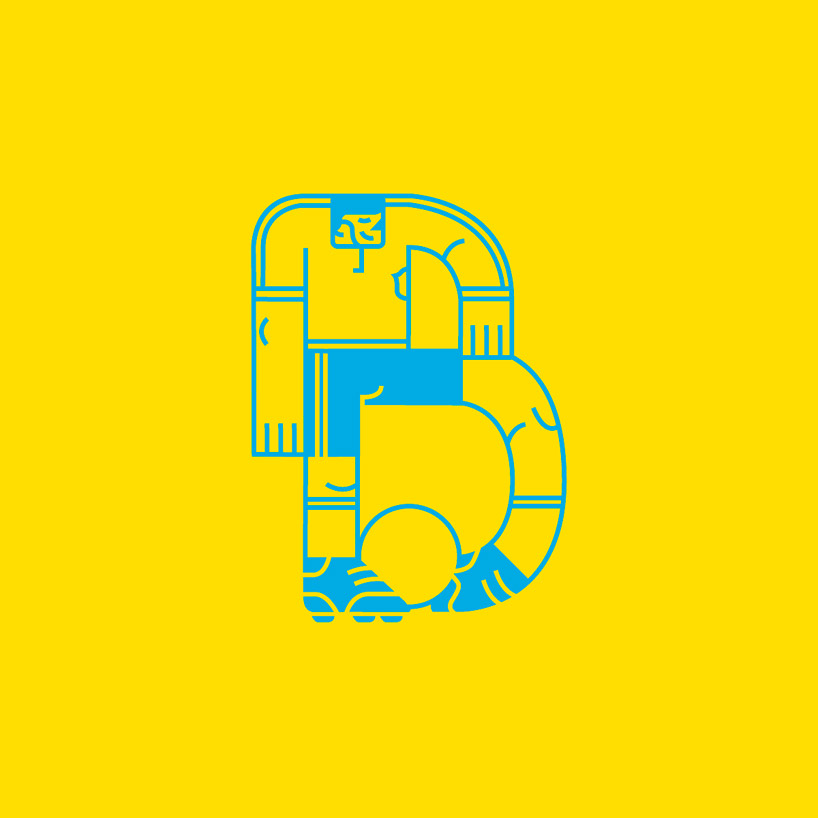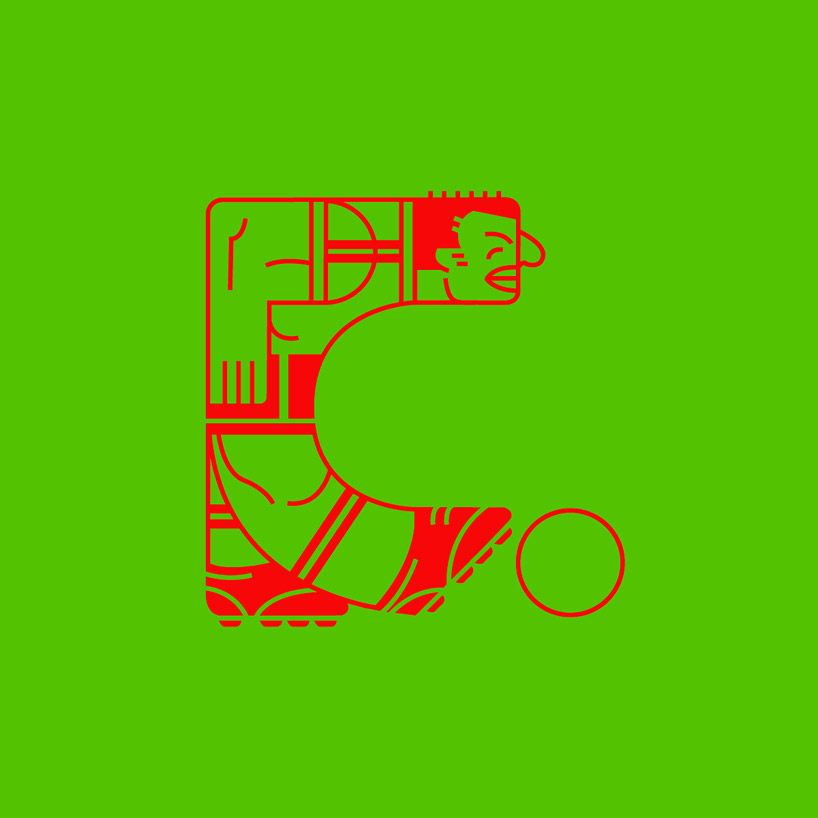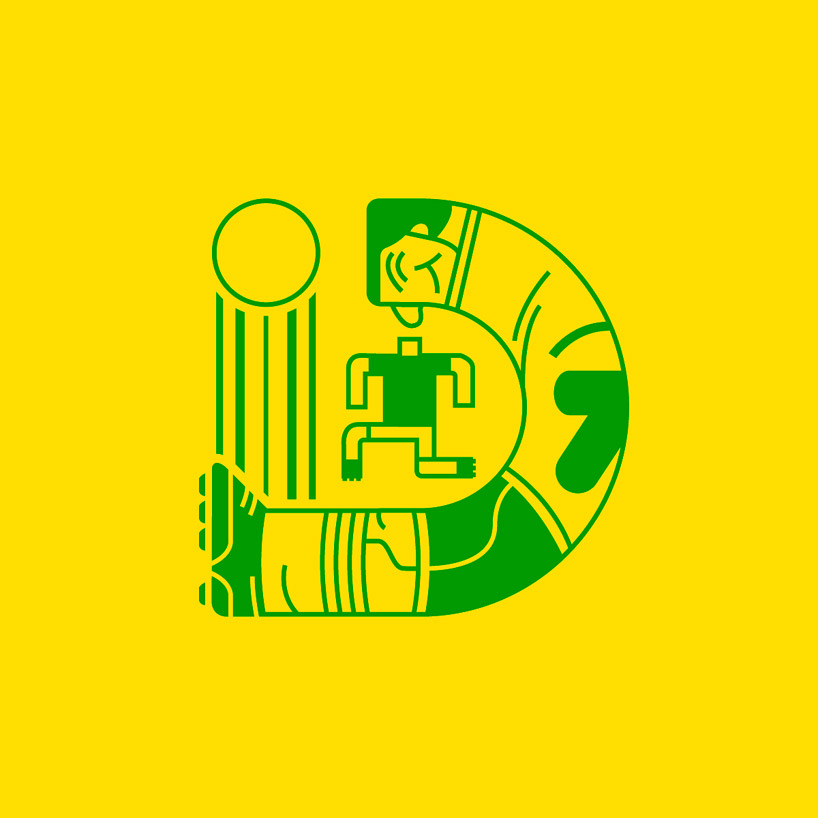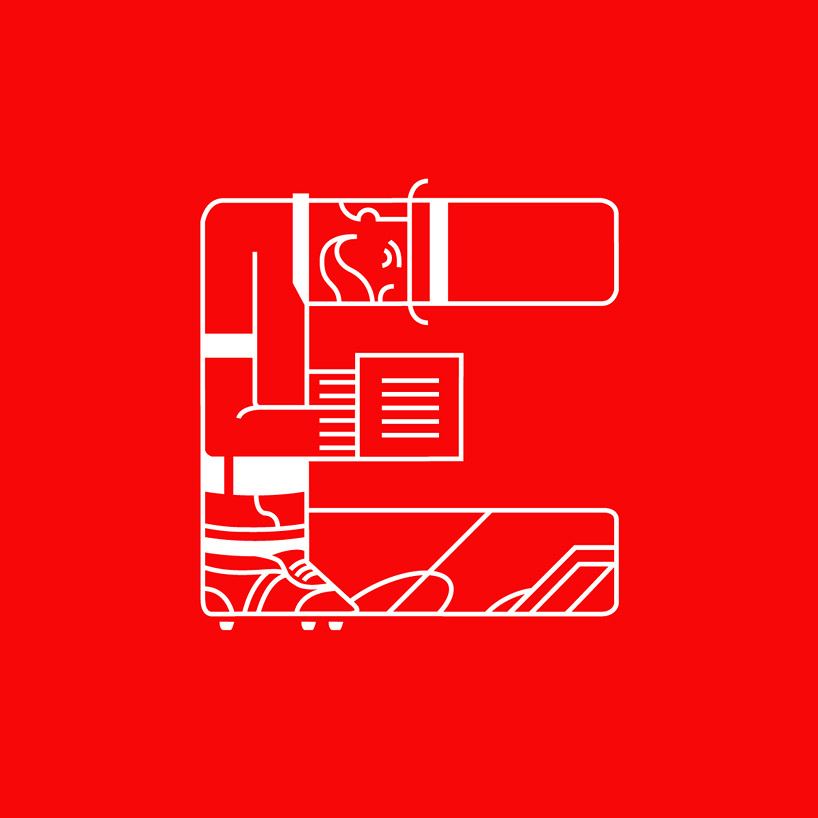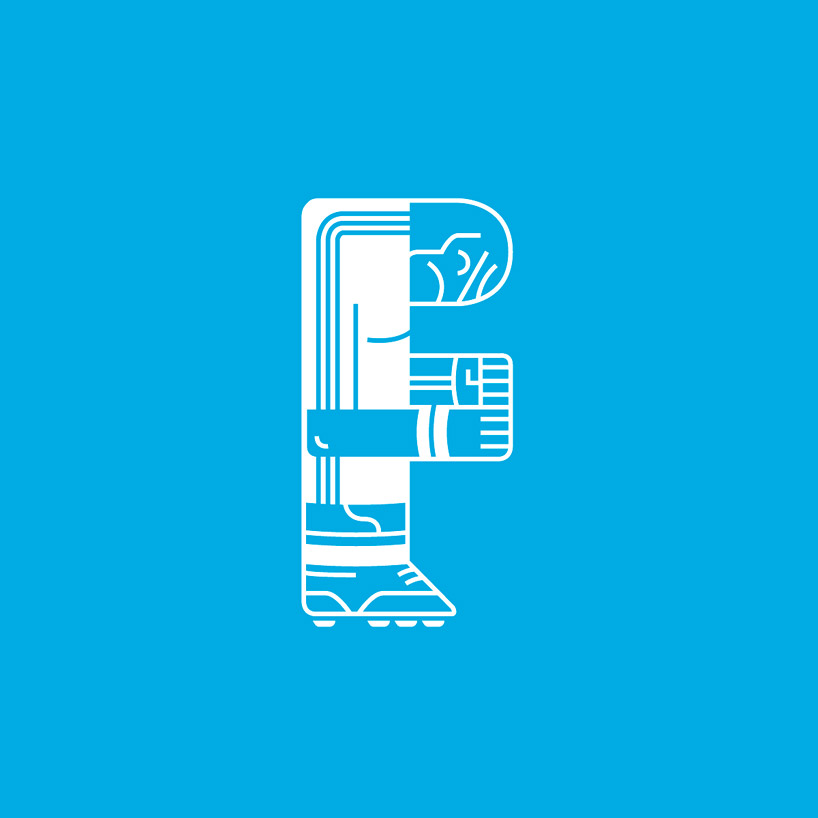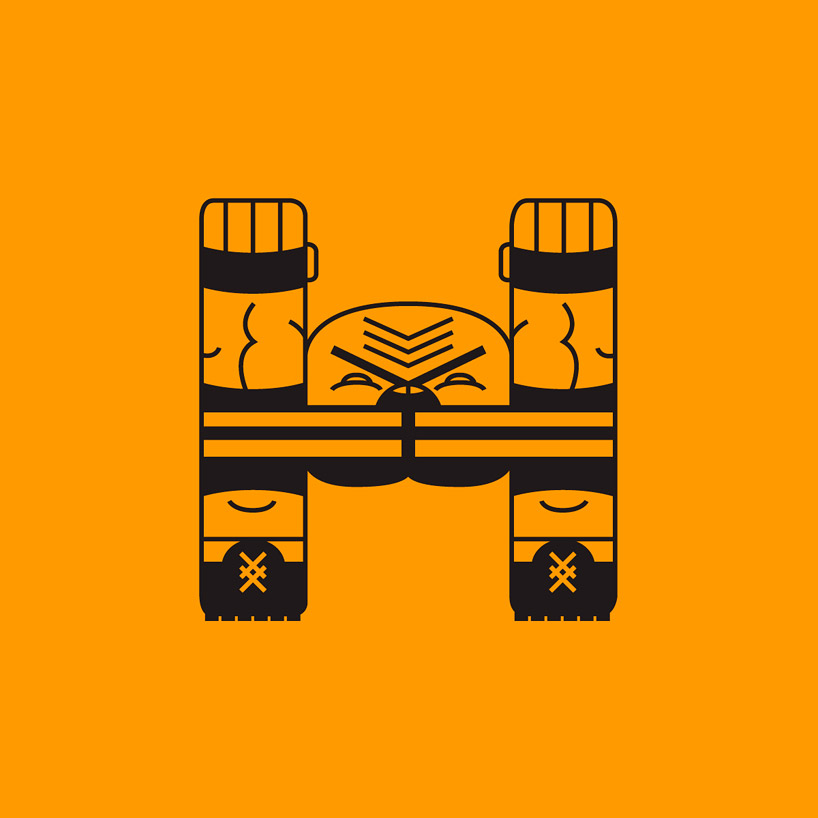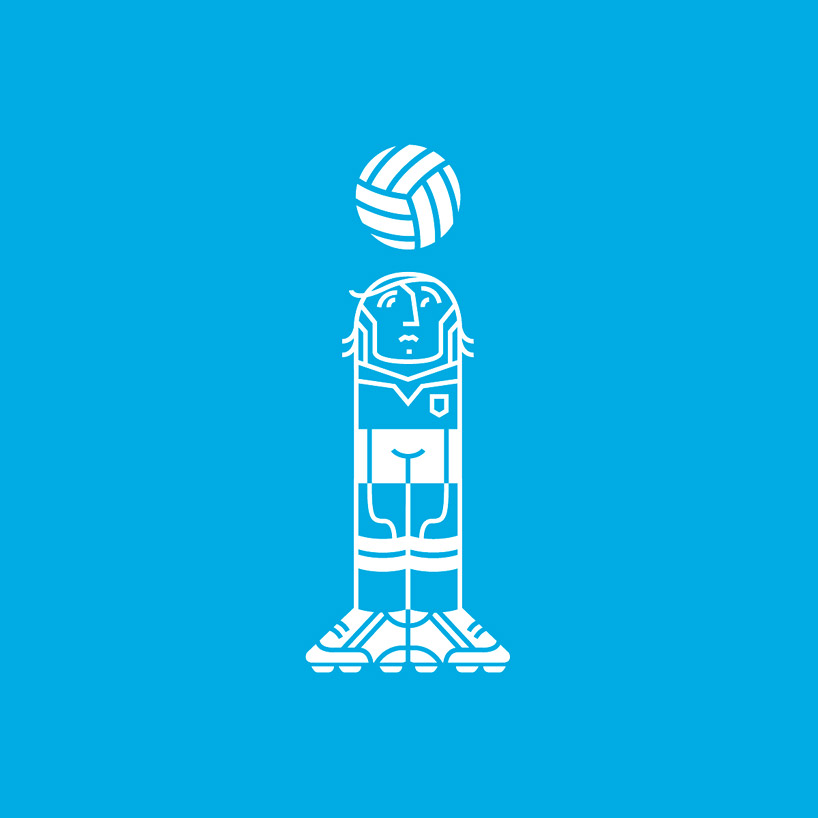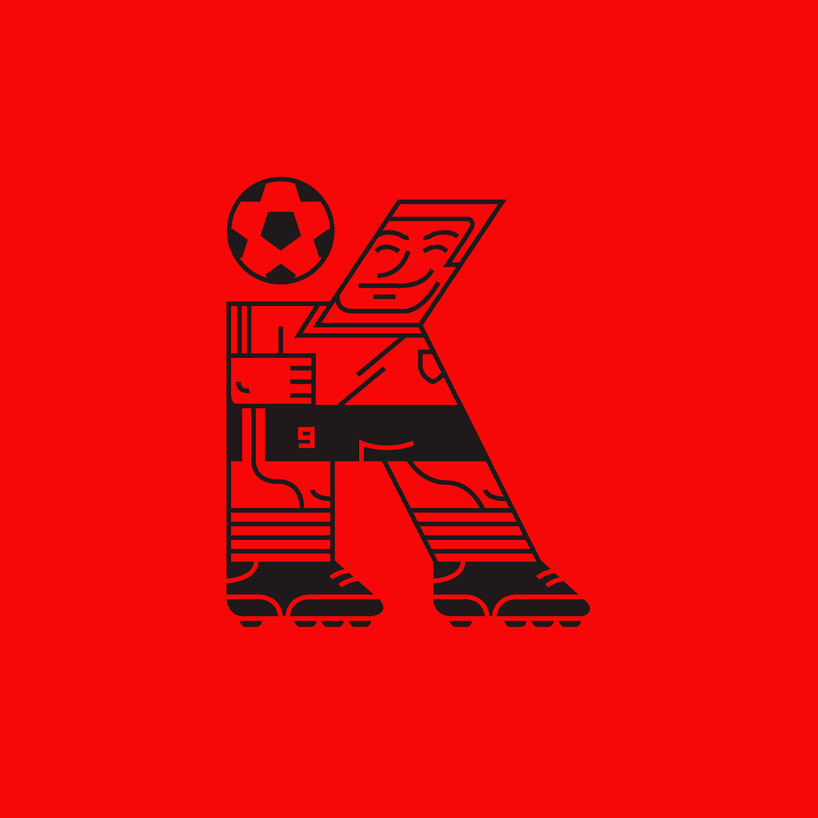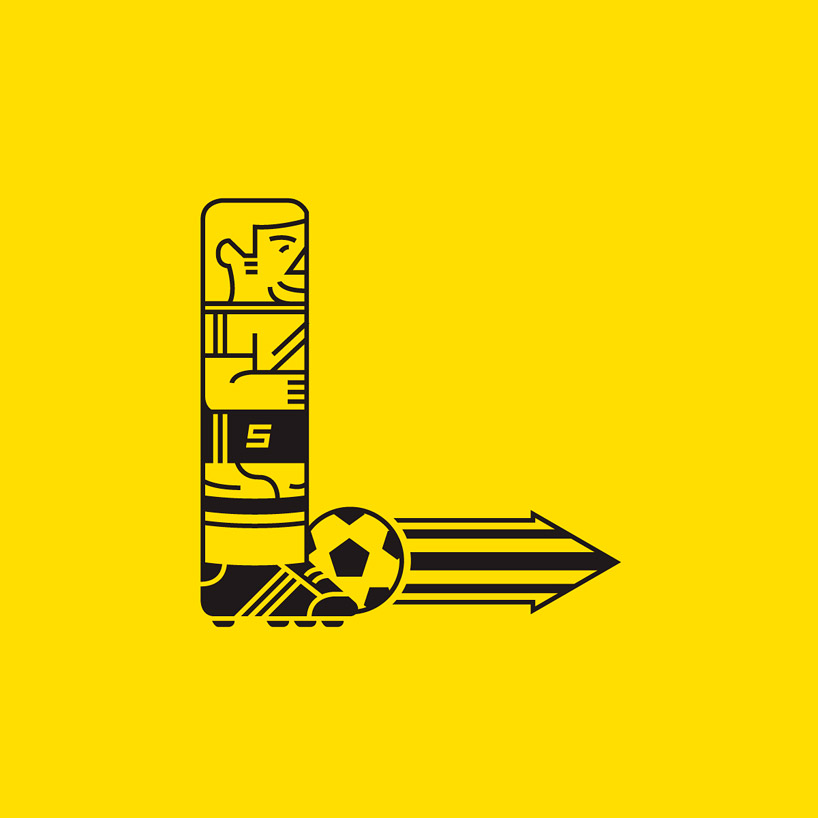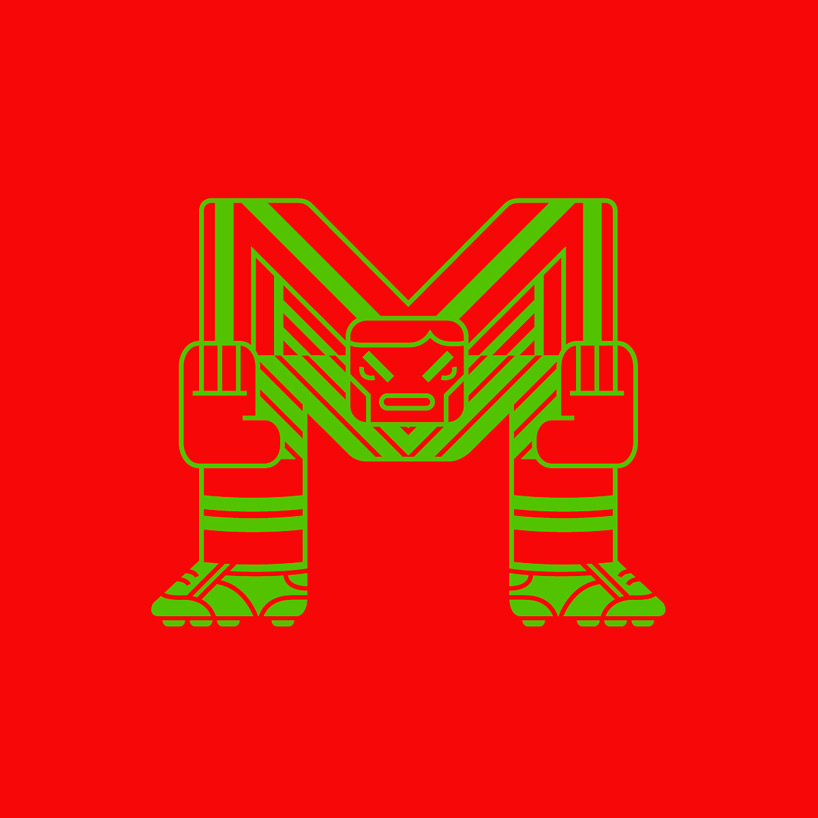
gustavo berocan veiga draws players as letters for world cup typeface
each football-themed letterform relates to either a participating country, type of fan, sports stadium, star player or game-winning move.
gustavo berocan veiga draws players as letters for world cup typeface
(above) A is for agentina
majorca-based illustrator gustavo berocan veiga has drawn every letter of the alphabet, including all of the numerals, thematically related to the ongoing FIFA world cup. each football-themed letterform that makes up ‘association ball cup typeface’ relates to either a participating country, type of fan, sports stadium, star player or game-winning move. for example, ‘I’ for italy is made up of a standing andrea pirlo bouncing a ball on the top of his head, and ‘D’ for dribble sees a player kicking the ball between his feet. the project has been created for ‘36 days of type‘, an initiative that asks designers and illustrators to submit their own view on the signs from our alphabet.
B is for brazil
C is for cameroon
D is for dribble
E is for england
F is for france
G is for germany
H is for hooligan
I is for italy
J is for japan
K is for keepie uppie
L is for libero
M is for mexico
N is for netherlands
O is for ‘o maior do mundo’